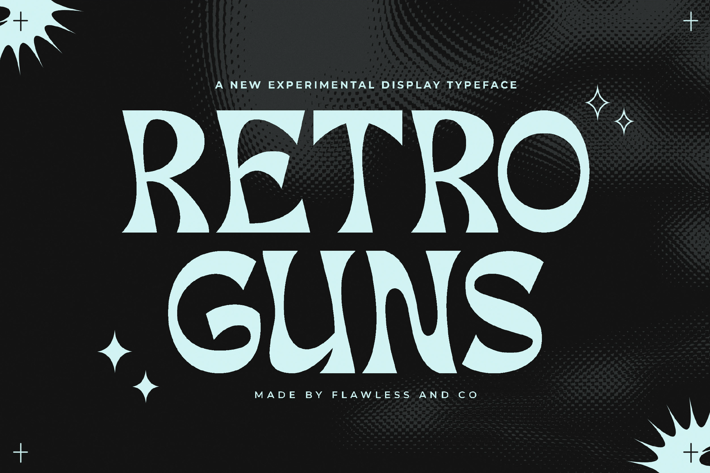
Retro Guns Display Font Typeface
Introducing "Retro Guns" - A Display Typeface, a captivating display typeface that embodies the essence of vintage charm. With its unique retro styling, "Retro Guns" is designed to bring a touch of yesteryear's character to your designs, evoking memories of a bygone era. This font is suitable for any graphic design such as branding materials, invitations, posters, photography, etc.